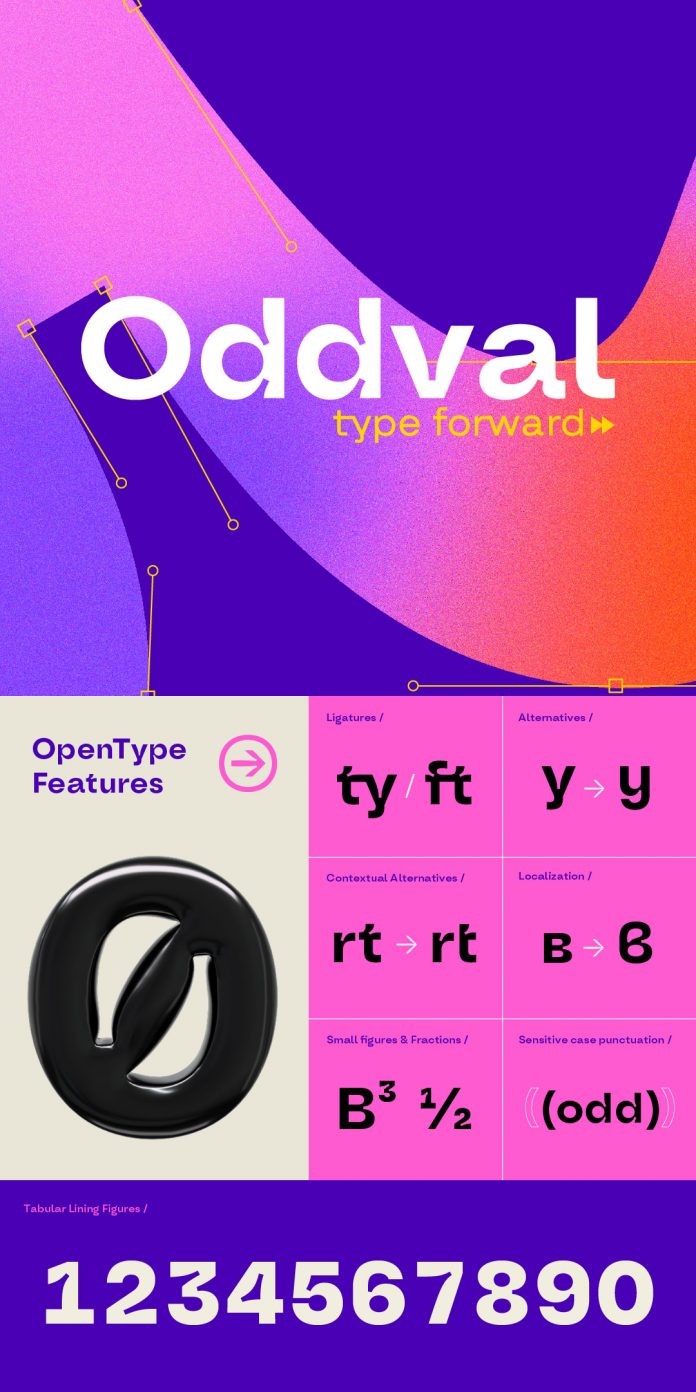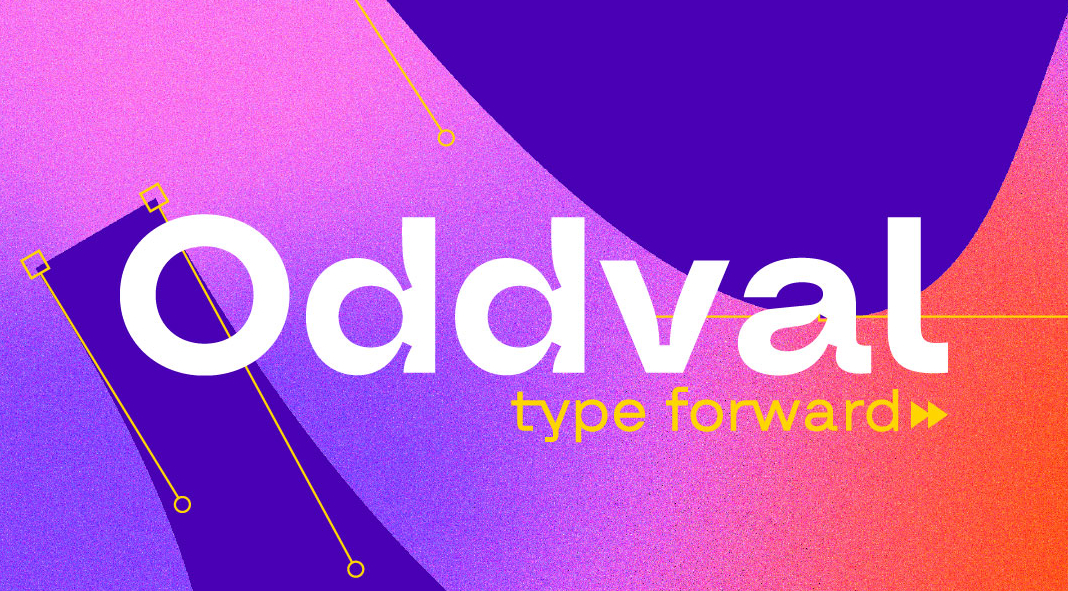
Available now for download, Oddval is a geometric display sans-serif font family by Type Forward.
Oddval is a contemporary display geometric sans-serif typeface with ink traps and a smooth, masculine tone. It is designed by Mirela Belova and Stan Partalev of Type Forward.
Oddval is a good choice for creative projects that involve innovation as it has a modern and unique style. It has a strong presence in text because of its high x-height, minimal stroke contrast, and slightly wide oval shapes. Please read more below or download the complete family on one of the following pages.
The Oddval type family consists of 9 weights that range from hairline to heavy. Additionally, there are corresponding Italics, making a total of 18 fonts. You can find all of these fonts in a single variable font file, giving you the freedom to create designs without any restrictions.
The font has a wide range of language support for over 220 languages, including Extended Latin, Cyrillic, and Greek. It comes with advanced typographic features such as standard and discretionary ligatures, a stylistic set, contextual alternates, tabular and small figures, fractions, and language localizations.
Oddval is a versatile font that works well in both print and on-screen media. Its best use is for headlines and logos, but it can also be used in short paragraphs to give a modern touch.